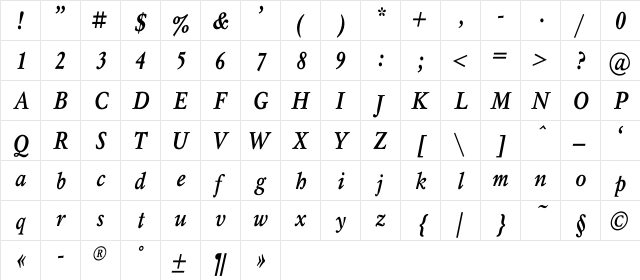
MyslNarrowC Bold Italic Font Preview
Design Context for MyslNarrowC Typeface
MyslNarrowC offers clean, dependable letterforms without strong stylistic allegiance, making it a practical choice for designers who need flexibility. The slanted form adds forward momentum and visual energy. The heavy weight commands attention and anchors typographic hierarchies. Its narrow stance lets it pack a punch even in space-constrained designs.
Pro Tip: Try MyslNarrowC for annotation and caption copy alongside an upright companion — the contrast in angle creates a dynamic but ordered typographic system.